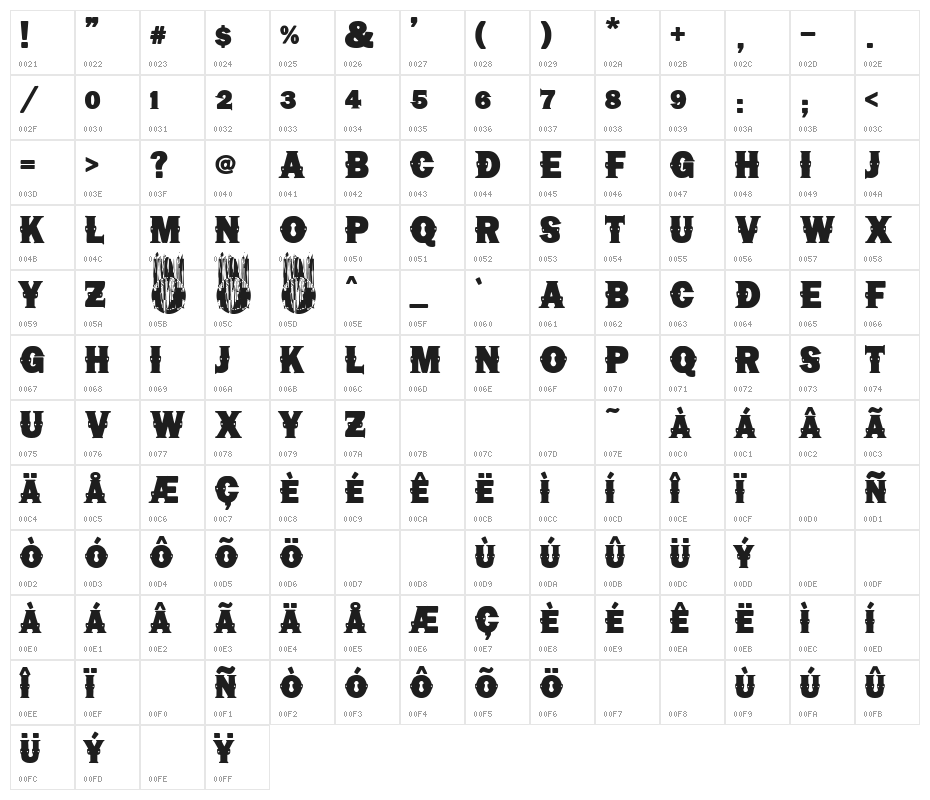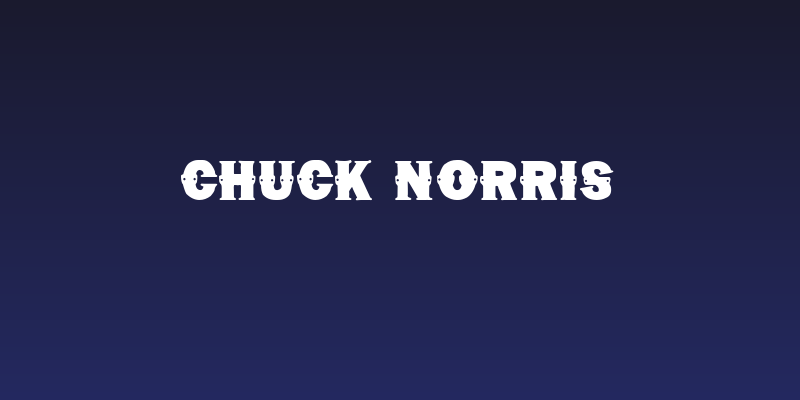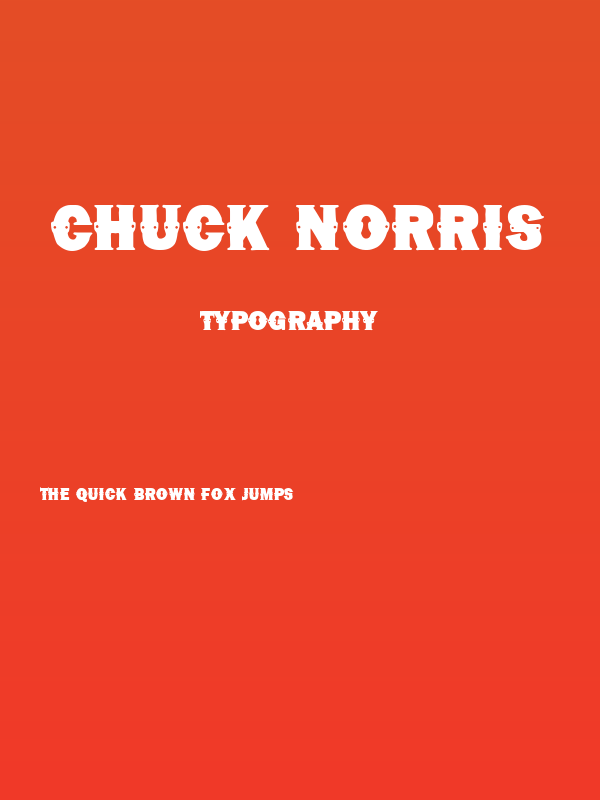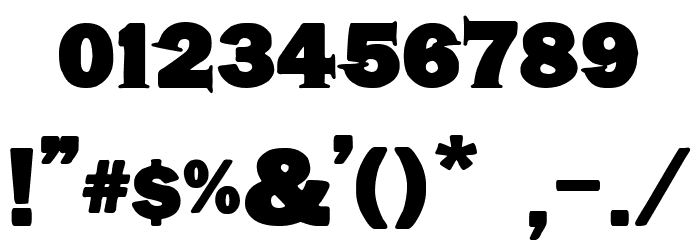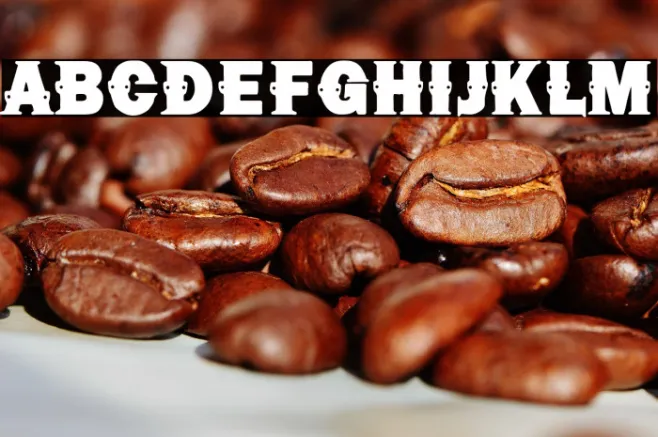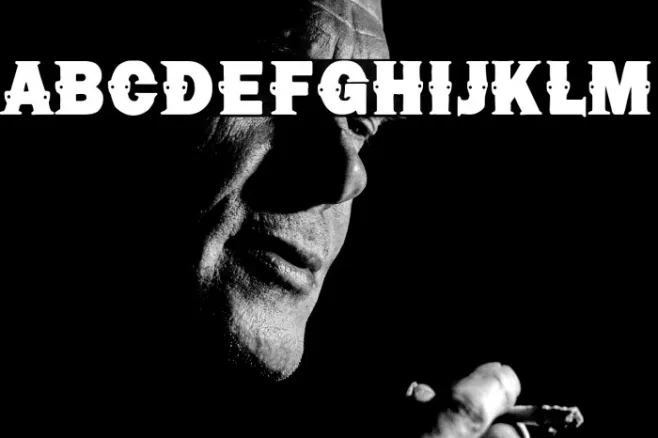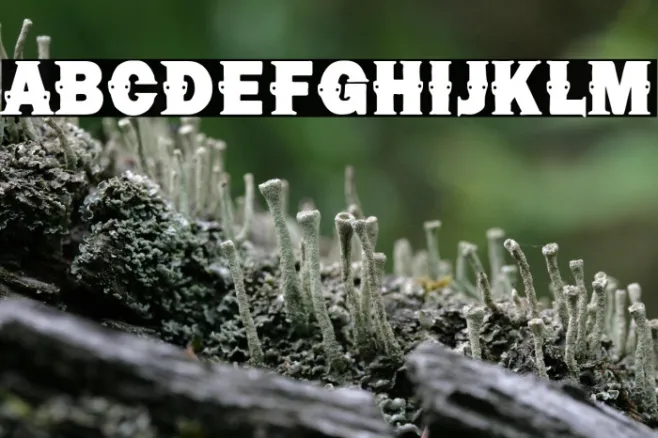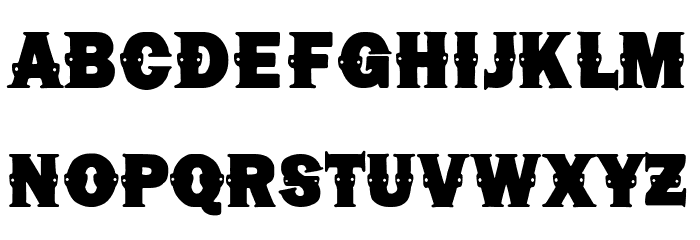
Chuck Norris Font
Chuck Norris Description
This font features a bold and impactful design with a strong, decorative style. The characters are embellished with unique circular cutouts, giving them a rugged and distinctive appearance. The uppercase letters are uniform in height and width, creating a cohesive look across the alphabet. The numbers and special characters maintain this bold style, ensuring consistency throughout. The font's design is reminiscent of vintage Western typography, making it ideal for projects that require a strong, thematic presence.
| Proposed Projects | Ideal for posters, logos, and branding projects that require a strong, thematic presence. |